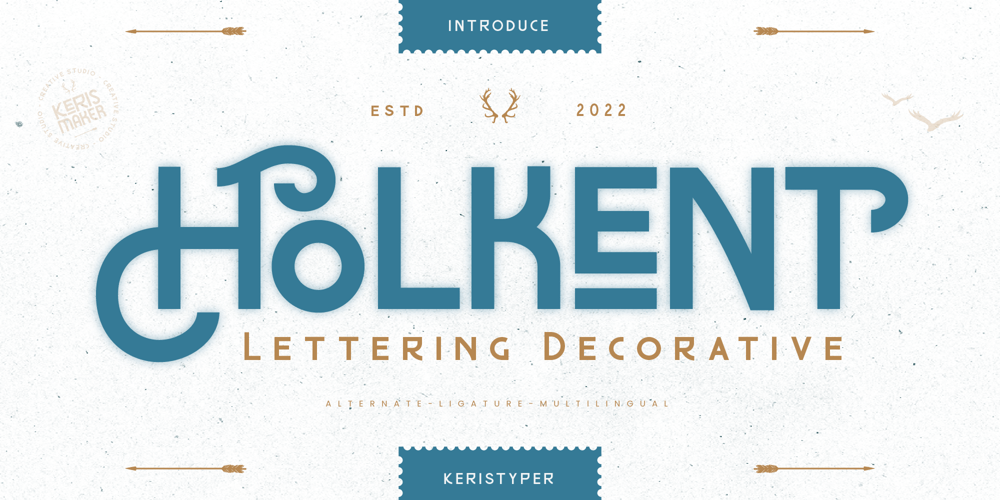
Holkent
Holkent font
Holkent Font Family was designed by Tezar Tantular and published by Keristyper Studio. Holkent contains 1 styles and family package options. Proudly presenting Holkent, a unique fancy, modern, vintage & decorative font. This font is good for logo design, social media, movie titles, book titles, short text even long text. It will also look great when combined with any other sans serif, serif or handwritten typeface.Featured: Standard Uppercase & Lowercase Numeral & Punctuation Multilingual : ä ö ü Ä Ö Ü ß ¿ ¡ Alternate characters & ligatures PUA encoded We recommend using applications which support OpenType features and have a Glyphs panel like e.g. Adobe applications or Corel Draw to allow full access to all the glyph variations included in our fonts.Hope you enjoy our fonts!